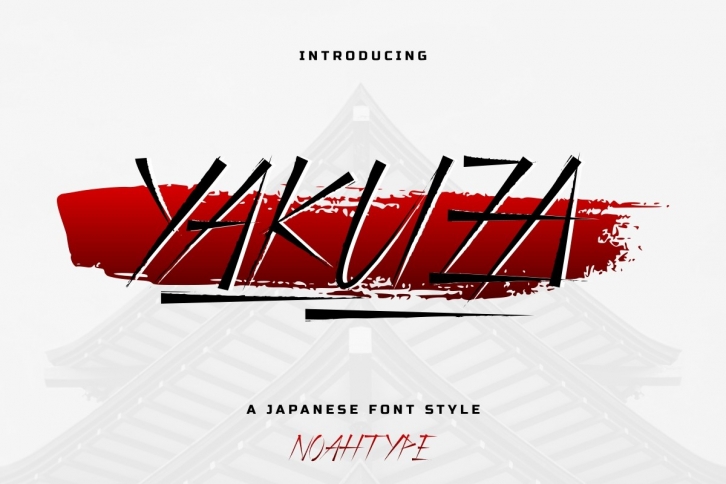
Yakuza is a brush display font with a special Japanese look. This font will add a personal handwriting twist to any design project. It is crafted carefully in every single scratch and created to look as close to natural handwriting as possible.
This brush font is for anyone who needs a special Japanese look for their designs. Use it for motor club, sport, music, video games, apps, Japanese-related creations, Korean, Asian, karate, fight, kung fu, etc.
This font will be awesome for logotypes, invitations, cards, flyers, headlines, promotion, social media posts, etc